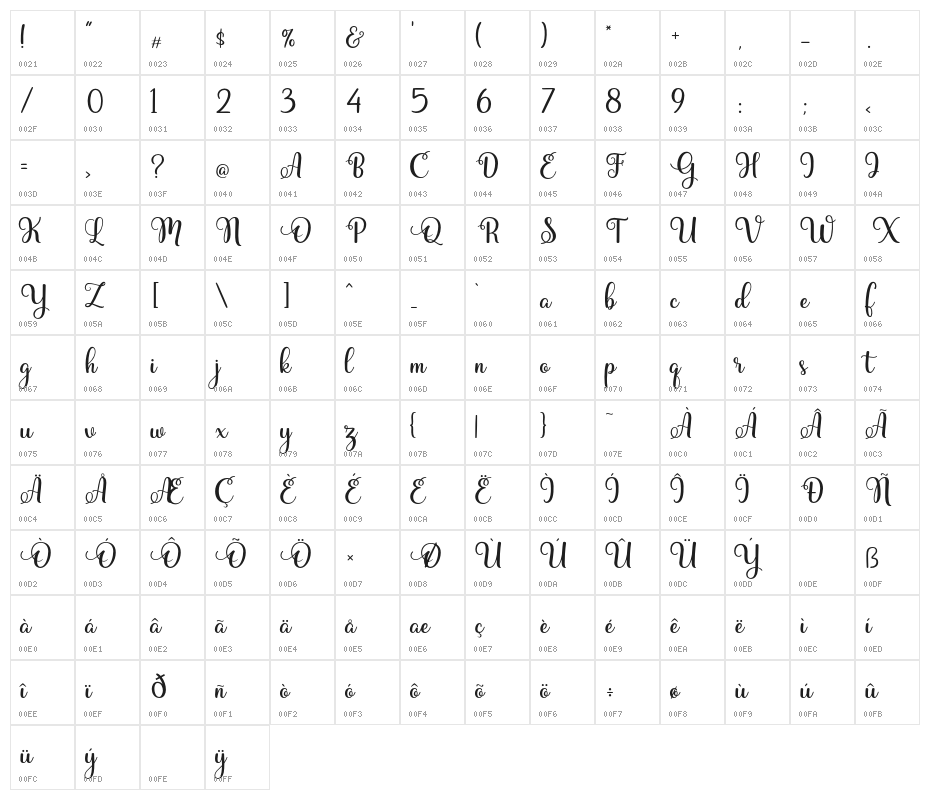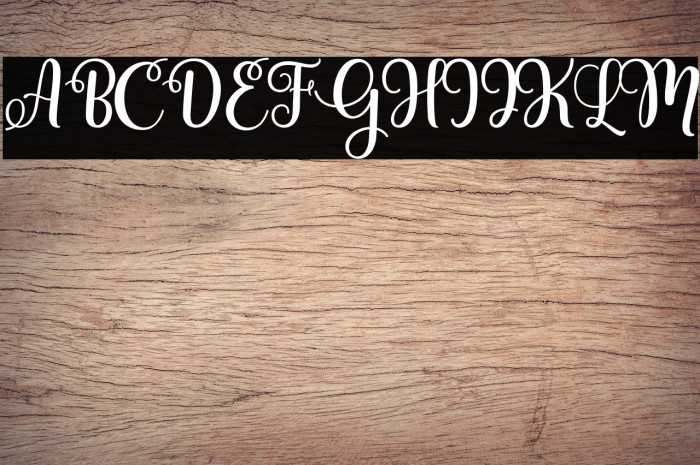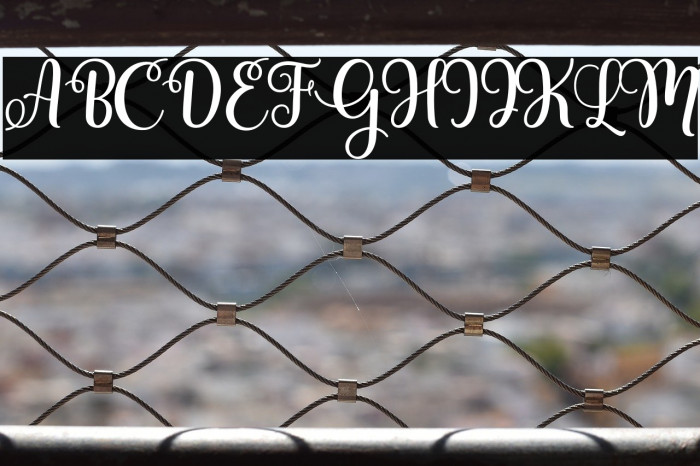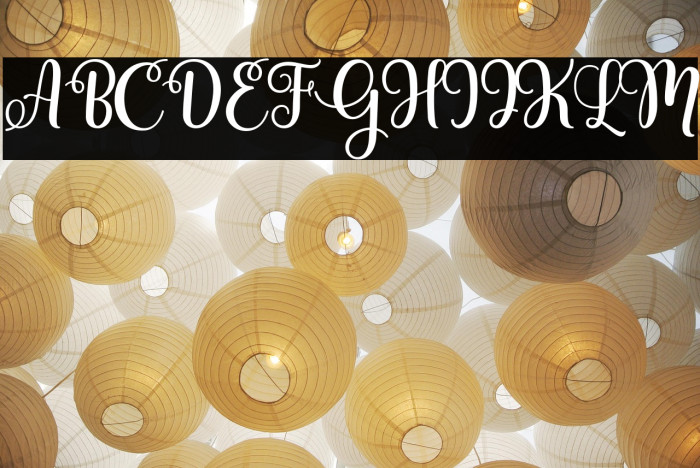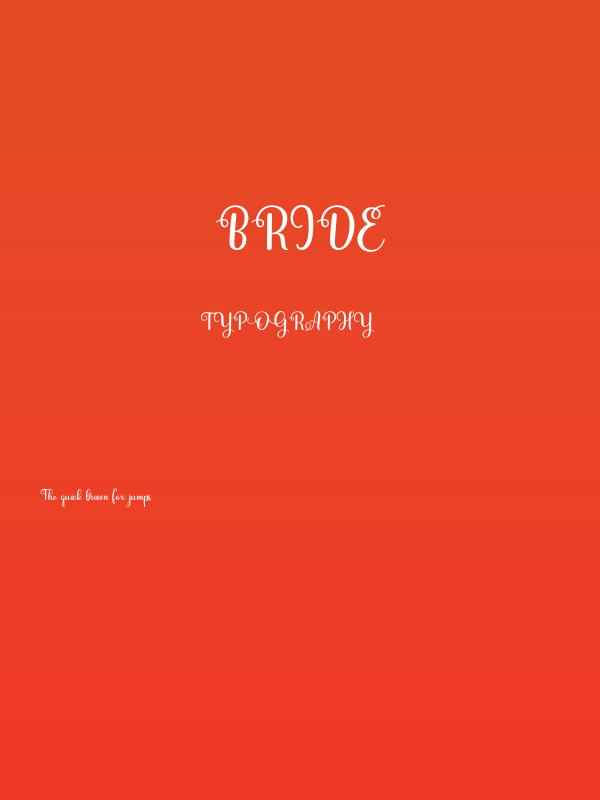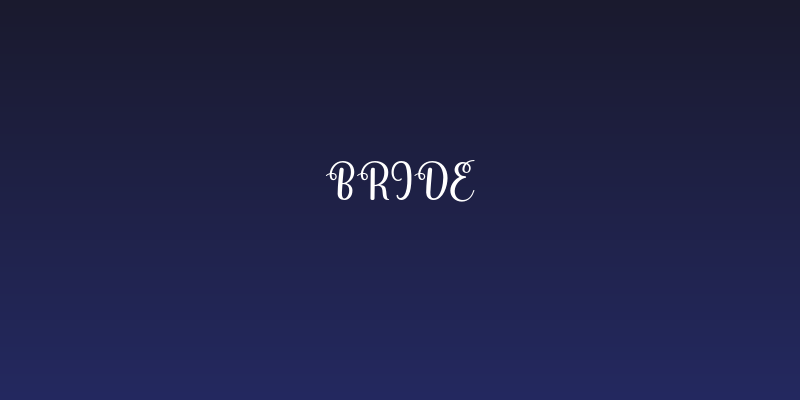
Bride Font
Bride Description
This font features an elegant and flowing script style, characterized by its decorative and ornate letterforms. The uppercase letters are particularly elaborate, with intricate loops and flourishes that give a sense of sophistication and grace. The lowercase letters maintain a more restrained elegance, offering a smooth and connected appearance that enhances readability while retaining a stylish flair. The numerals are consistent with the overall script style, providing a cohesive look across all characters. Special characters are designed with similar attention to detail, ensuring they blend seamlessly with the rest of the font. This font is ideal for projects that require a touch of elegance and formality.
| Overall Style | Elegant, Decorative |
| Use Case | Headlines, Invitations, Branding |
| Proposed Projects | Wedding invitations, greeting cards, branding, and luxury product packaging. |